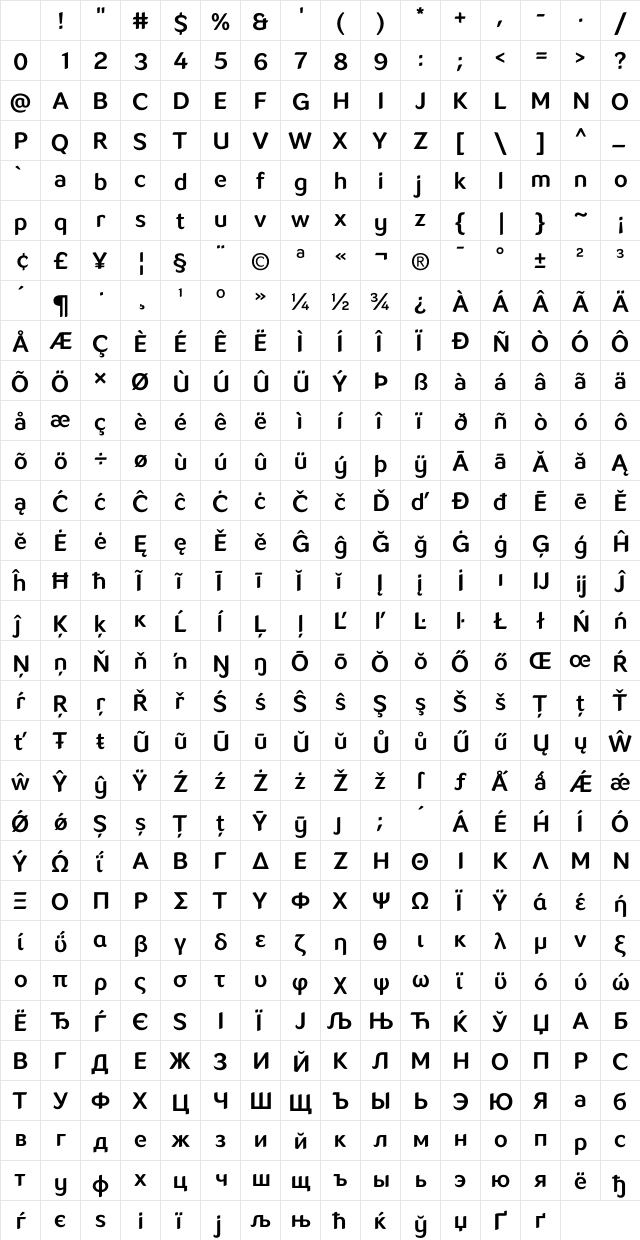
Complete LT Flode Neue News Regular glyph index. Displaying only characters natively supported by LT Flode Neue News Regular font.
LT Flode Neue News is a composed and adaptable typeface that performs quietly and consistently across a wide range of design contexts. Its slender proportions lend an understated elegance to any composition.